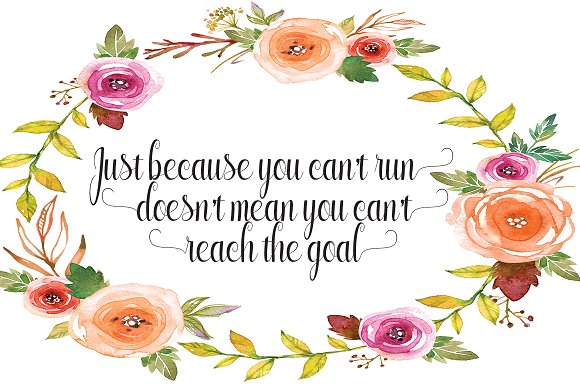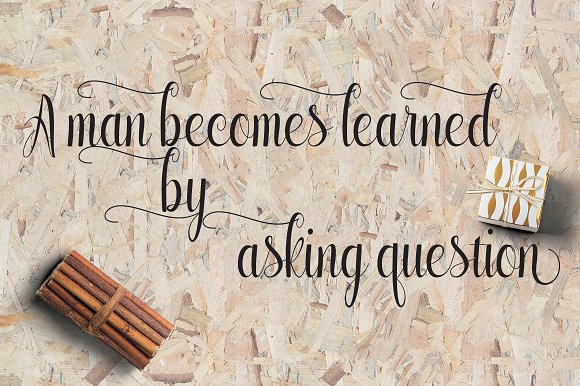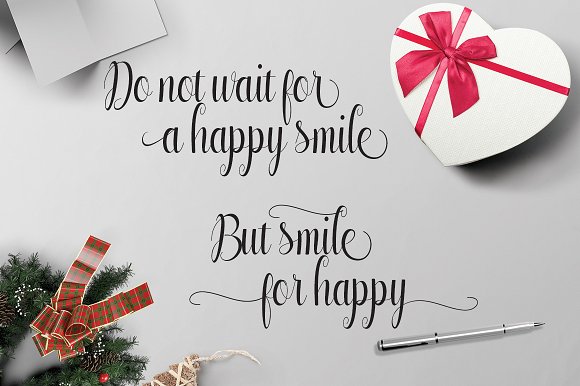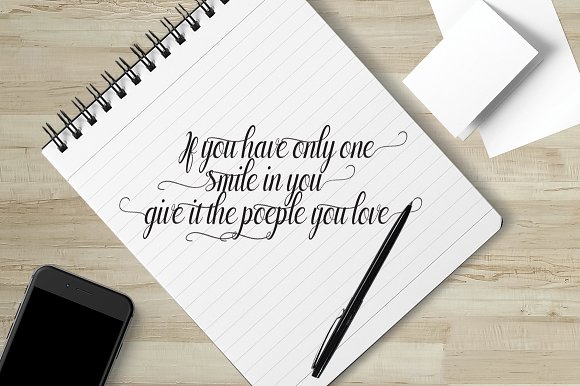
HomeScript FontsAnnabeth Font Script Fonts Annabeth Font FacebookXPinterestWhatsApp Annabeth Font Poster 2 Annabeth Font Poster 3 Annabeth Font Poster 4 Annabeth Font Poster 5 About Annabeth Font Annabeth is a fluid handwritten script created by StudioRz. DOWNLOAD ON CREATIVE FABRICAThis font is sold and delivered by Creative Fabrica. Font Canyon may earn a commission if you buy through this link. People also explored Harmonic Script Font Efrasda Font Hearted Velinda Font Ladytron Script Font Passenger Font Cromwell Font Mini Heart Font Sinten Font Pink Rose Font 294 0 TagsAnnabeth Font Previous articleClaiborne FontNext articleKisah Ceritra Font LEAVE A REPLY Cancel reply Comment: Please enter your comment! Name:* Please enter your name here Email:* You have entered an incorrect email address! Please enter your email address here Website: Save my name, email, and website in this browser for the next time I comment. Personal Use Free Kidly Personal Use Free Read more about this font Rothwell Personal Use Free Read more about this font Burnstown Dam Personal Use Free Read more about this font Round Geometric Personal Use Free Read more about this font BLOG Top 7 Google Fonts Alternatives for Faster and Privacy-Friendly Web Design (2025) Top 7 Google Fonts Alternatives for Faster and Privacy-Friendly Web Design (2025) When it comes to web typography, Google Fonts has long been the go-to... Transform Your Website: Elevate Your Typography with 7 Best Web Font Generators Where to Buy American Fonts Online in 2024 Best Fonts for YouTube Videos: Make Your Thumbnails Stand Out